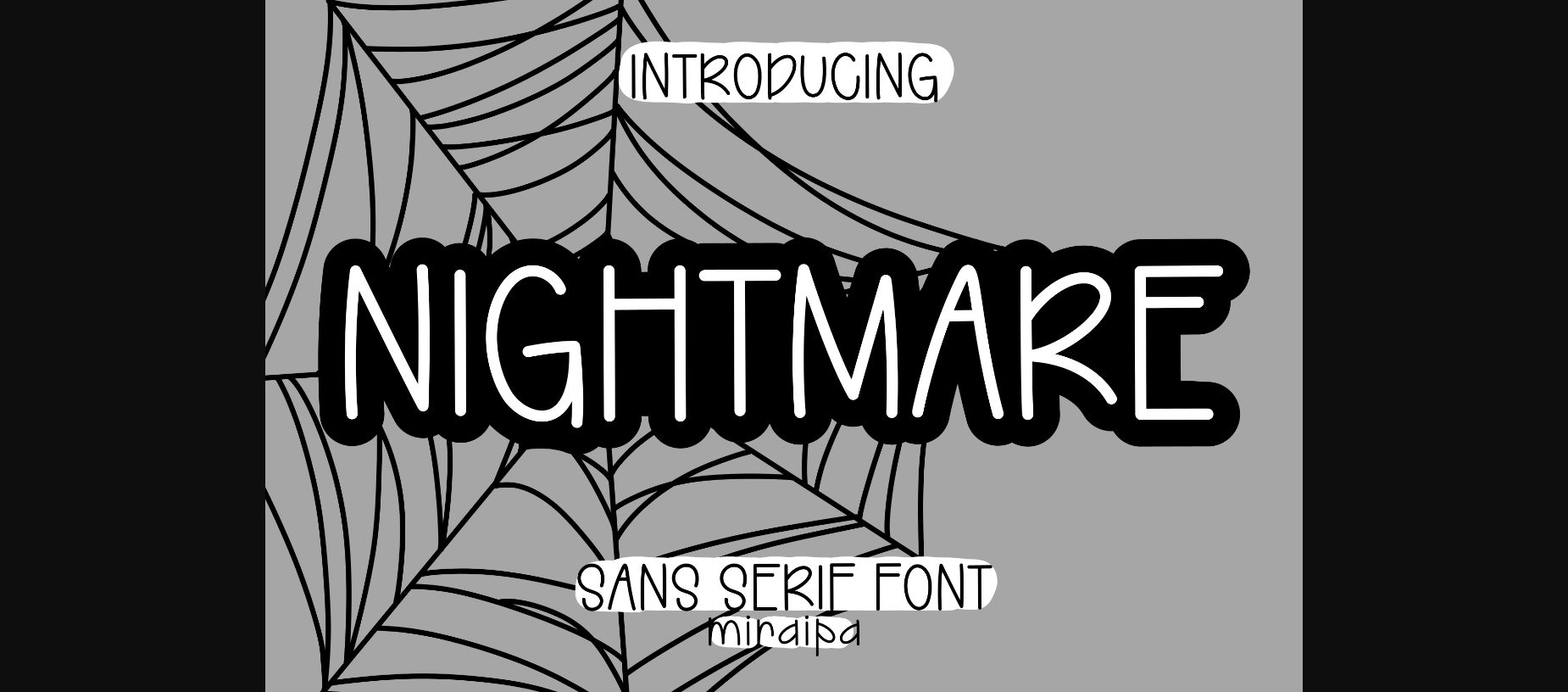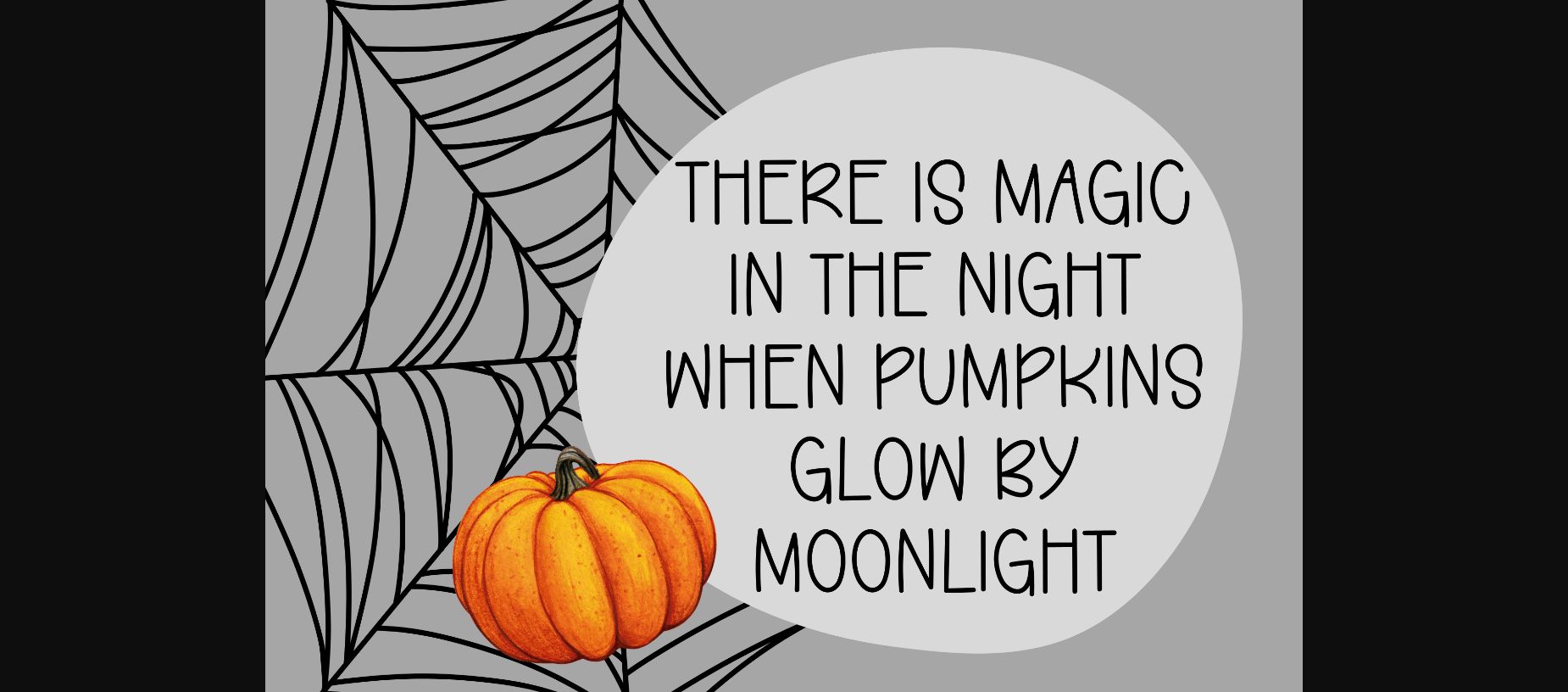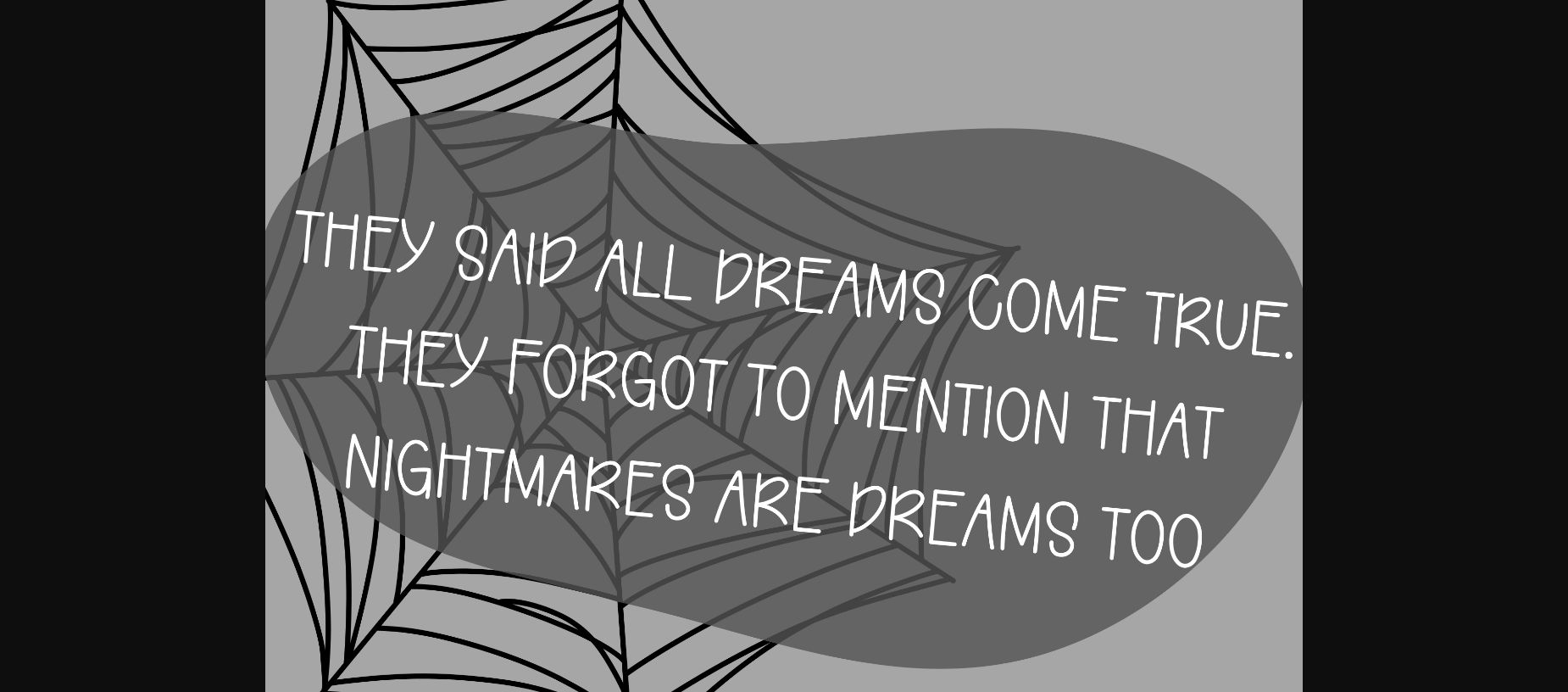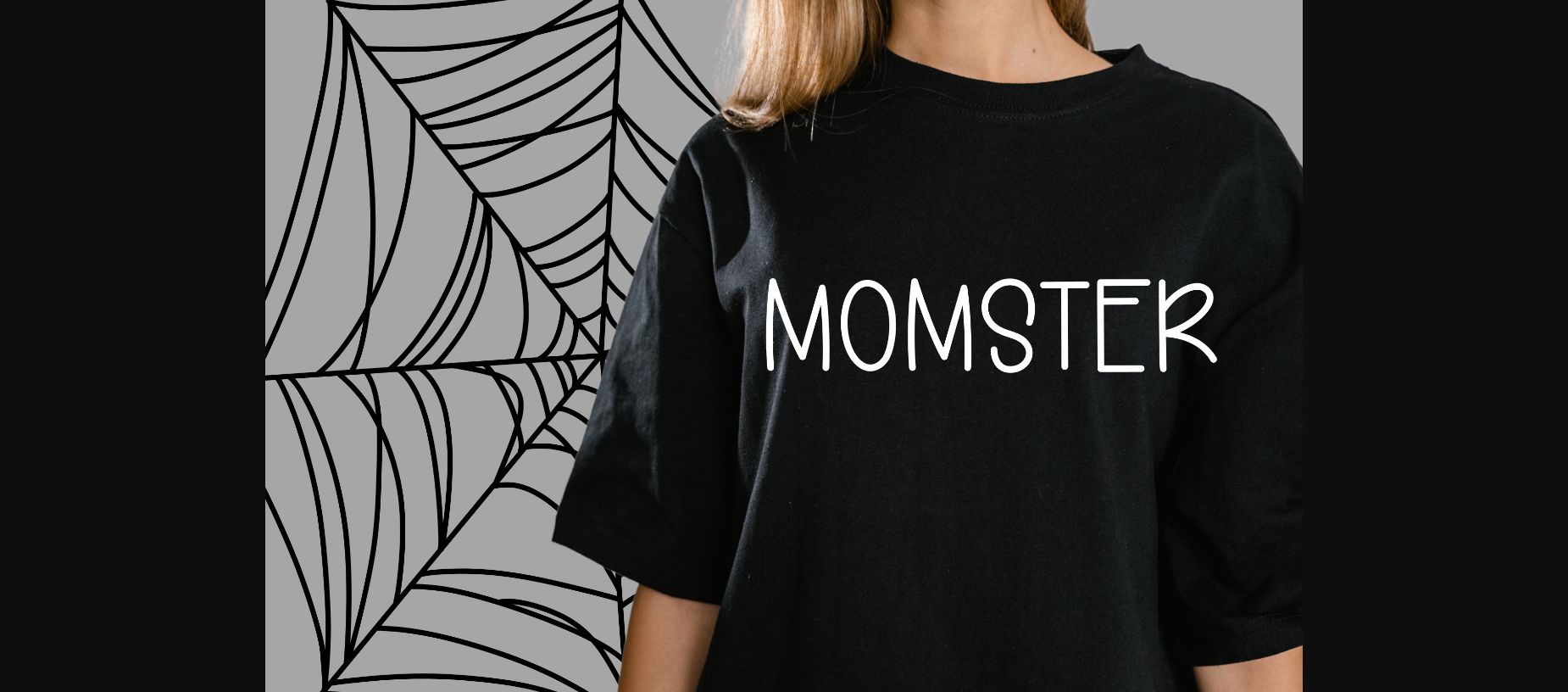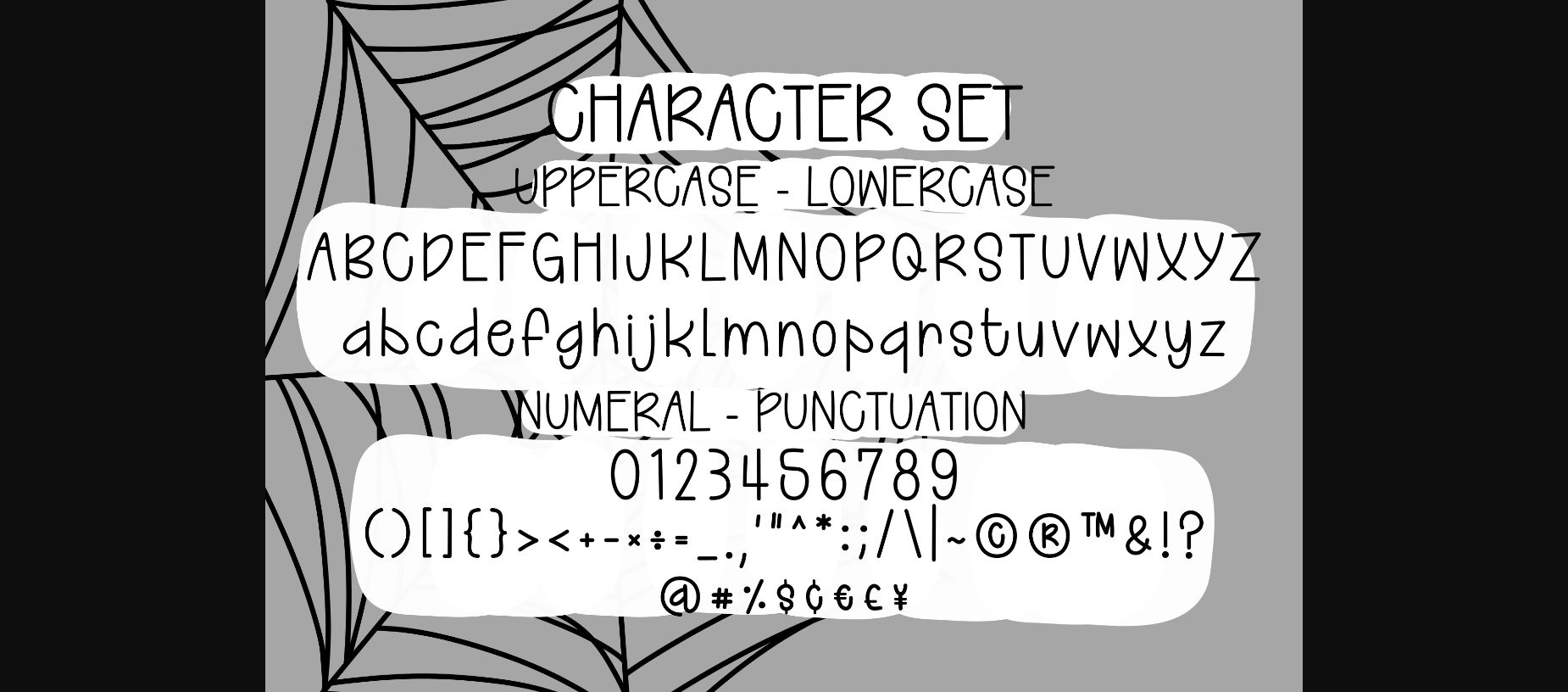
Nightmare Font
About Nightmare Font
Nightmare is designed in a cute and playful sans serif font style. It is charming, whimsical, and a bit quirky. It would be awesome to your fun projects or diary planner. Add it now to your fonts library, and it will bring any of your DIY projects to life.